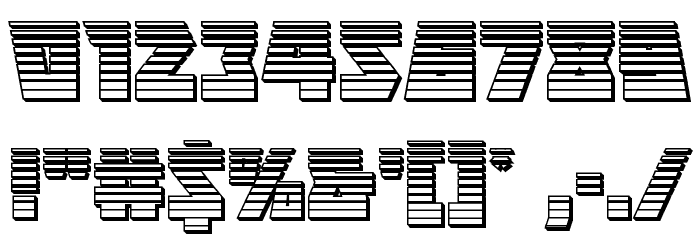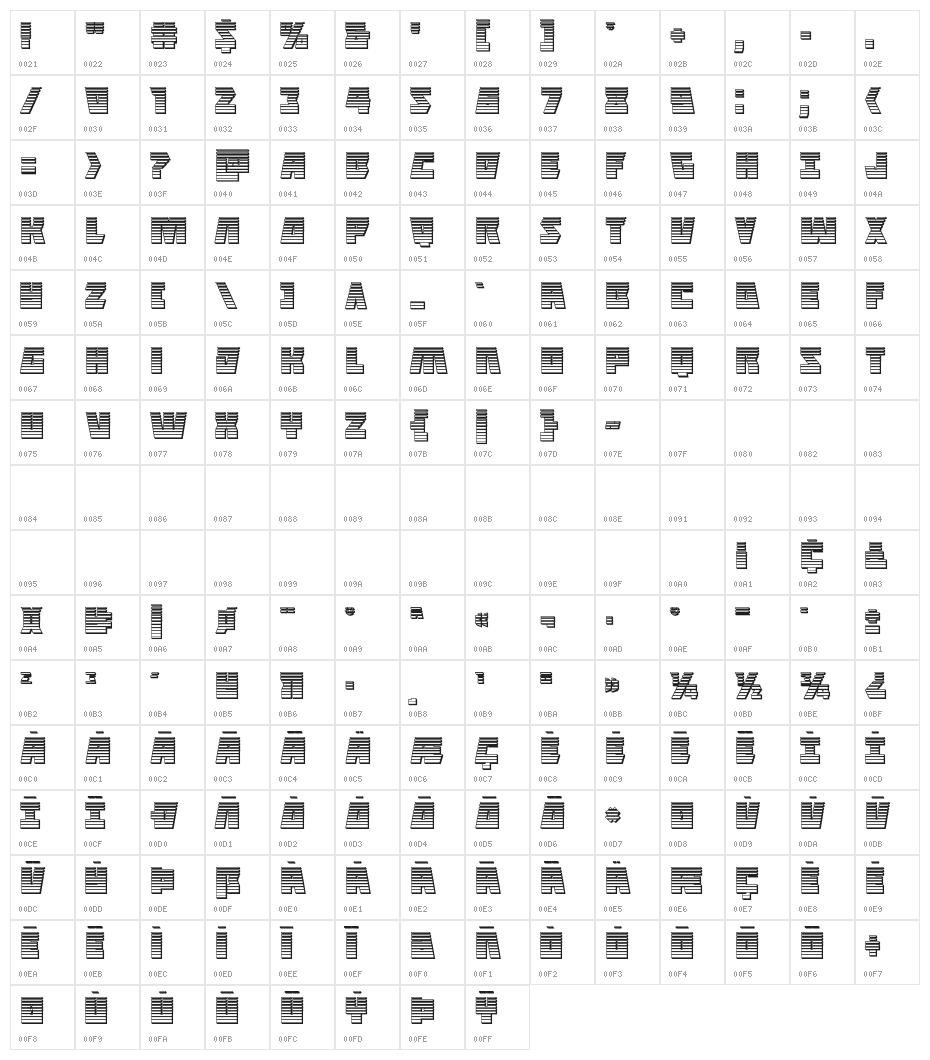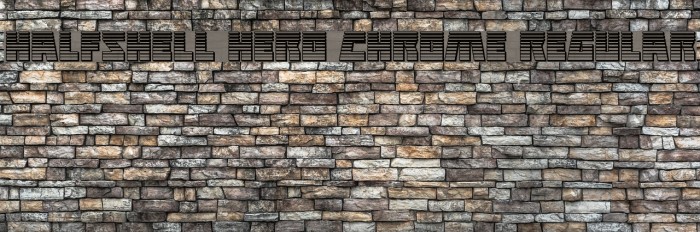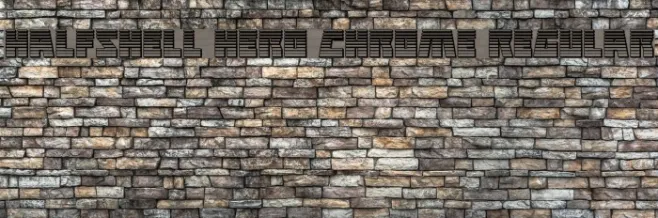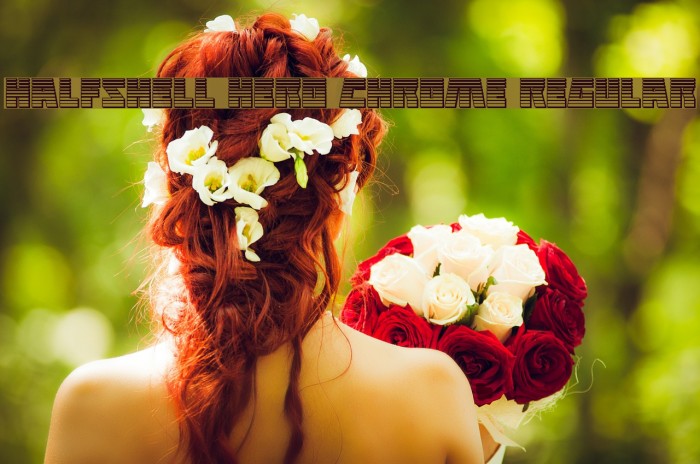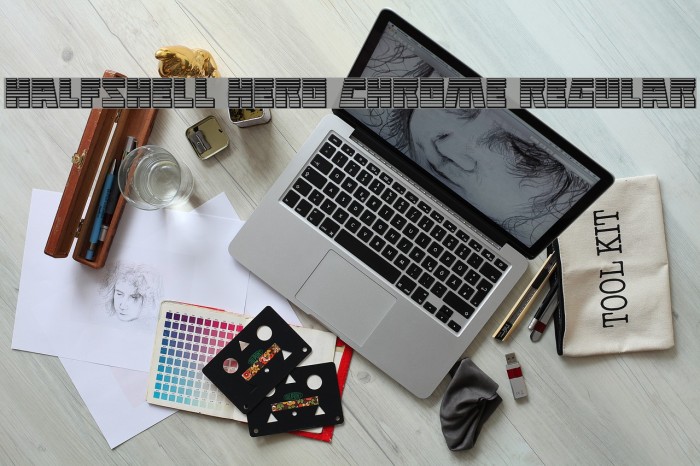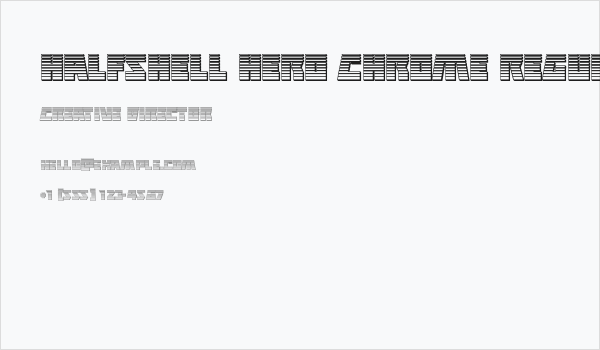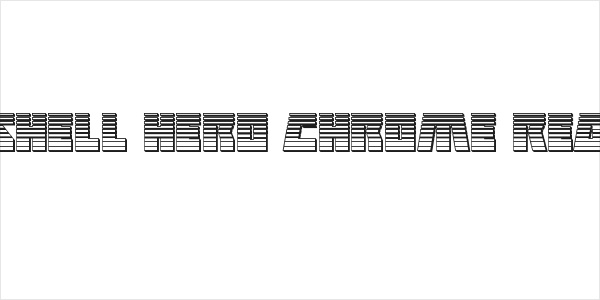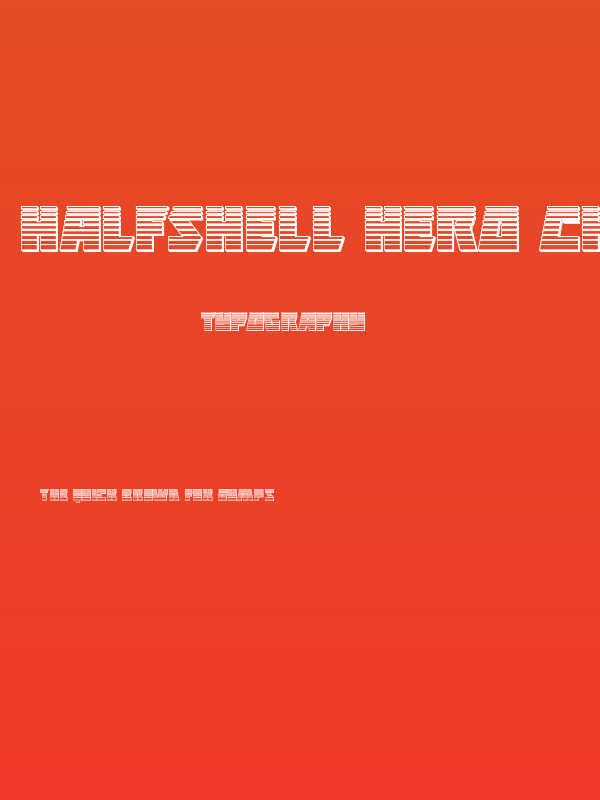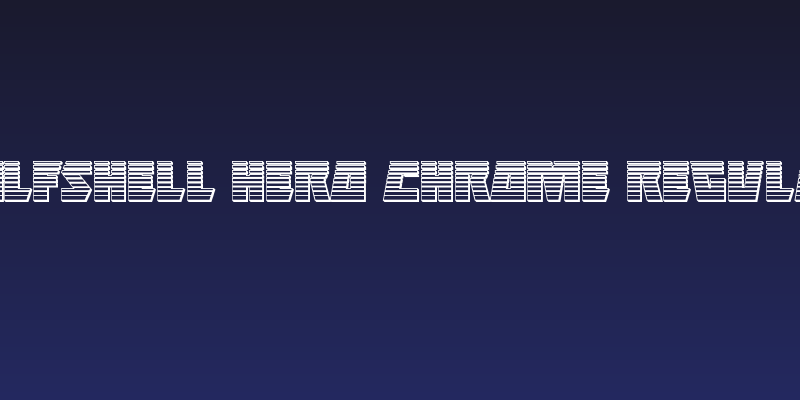
Halfshell Hero Chrome Regular Font
Halfshell Hero Chrome Regular Description
This font features a bold, three-dimensional design with a futuristic and industrial feel. Each character is composed of multiple horizontal lines, creating a layered effect that gives depth and a sense of movement. The geometric structure is consistent across all characters, providing a uniform and cohesive appearance. The uppercase and lowercase letters share a similar style, with the lowercase being slightly smaller in height. Numbers and special characters maintain the same design principles, ensuring a balanced and harmonious look throughout. This font's unique style makes it stand out, ideal for projects that require a modern and eye-catching typeface.
Overall StyleFuturistic
Proposed ProjectsIdeal for video game titles, sci-fi movie posters, technology branding, and futuristic event flyers.